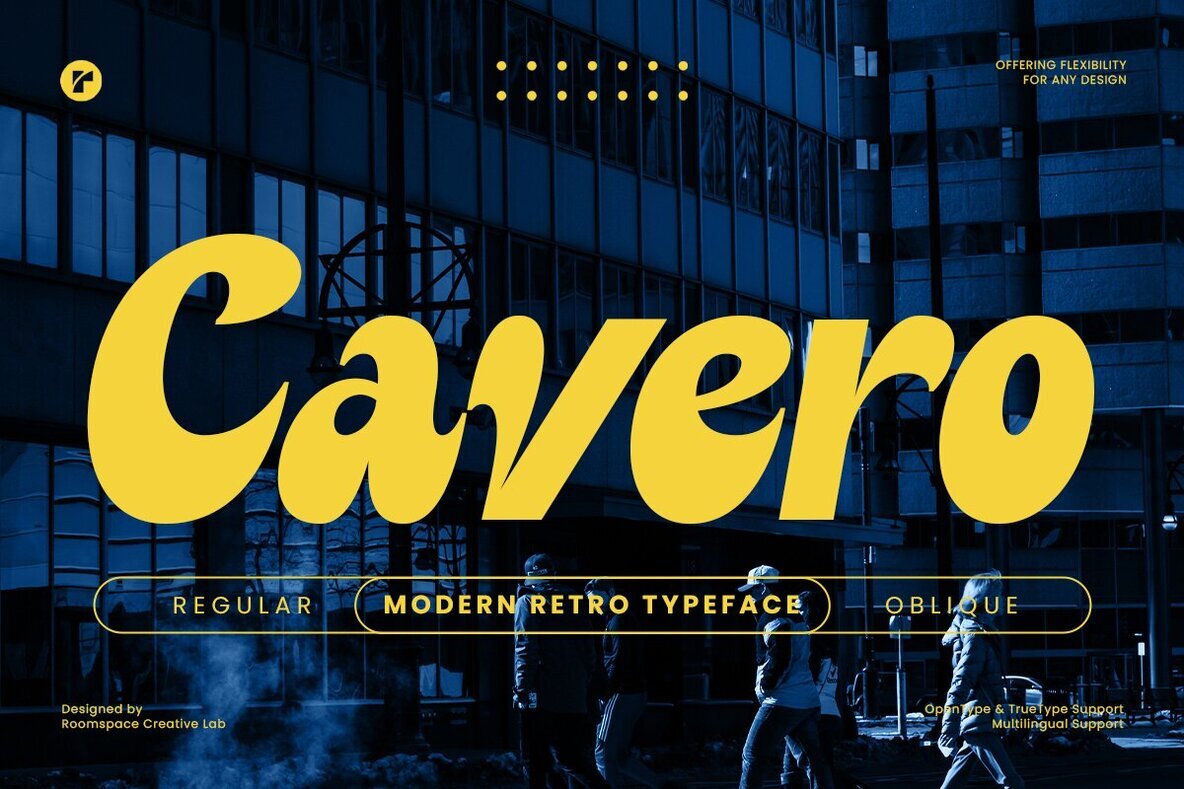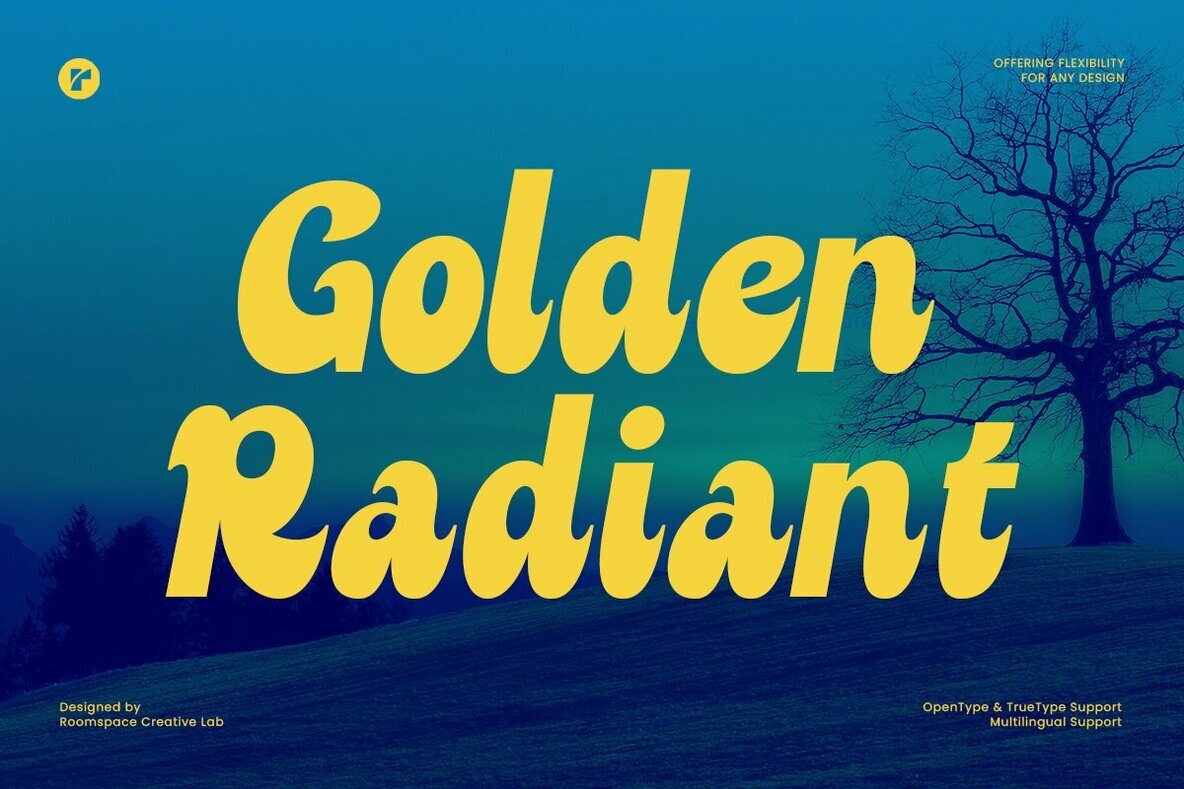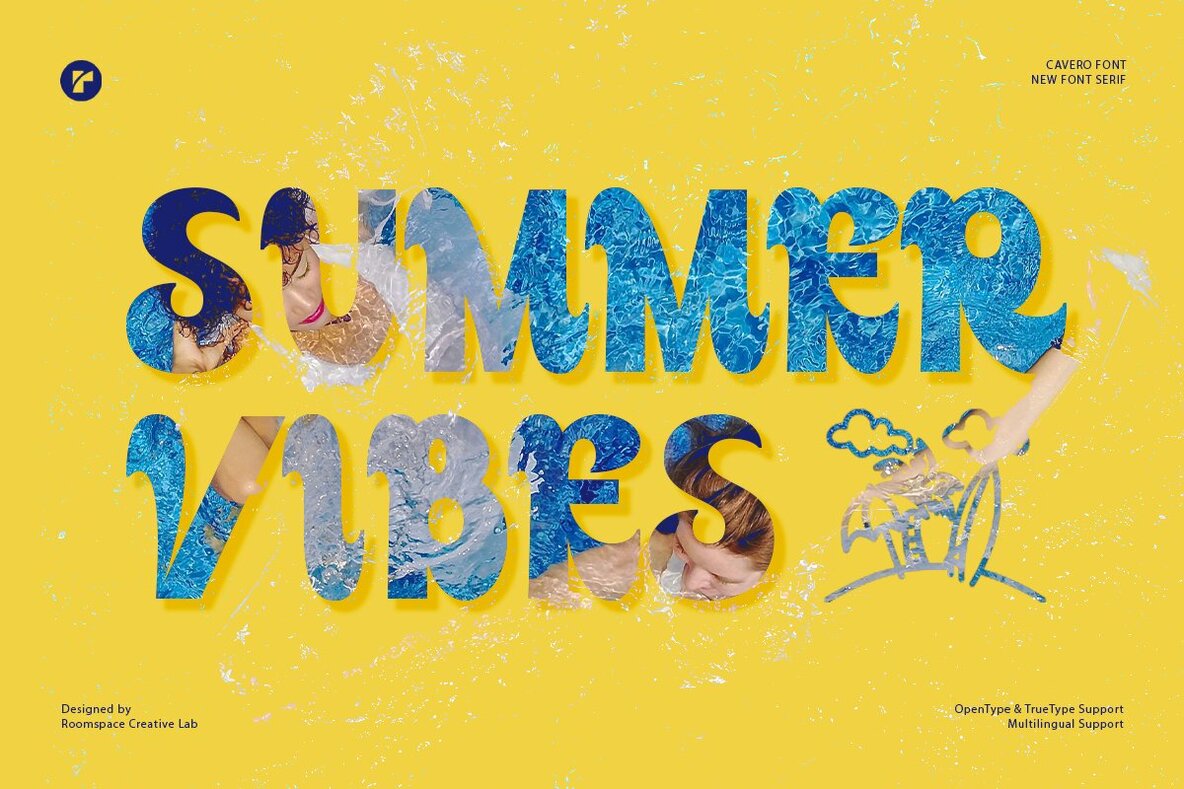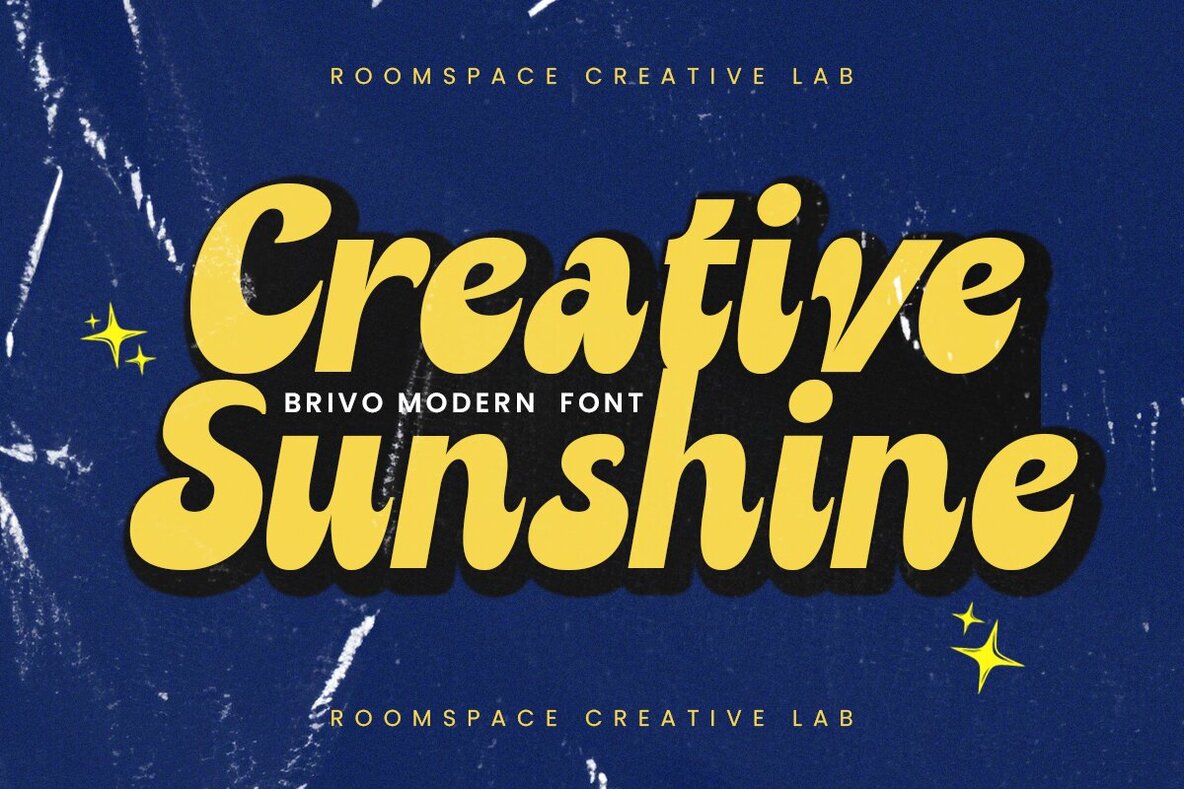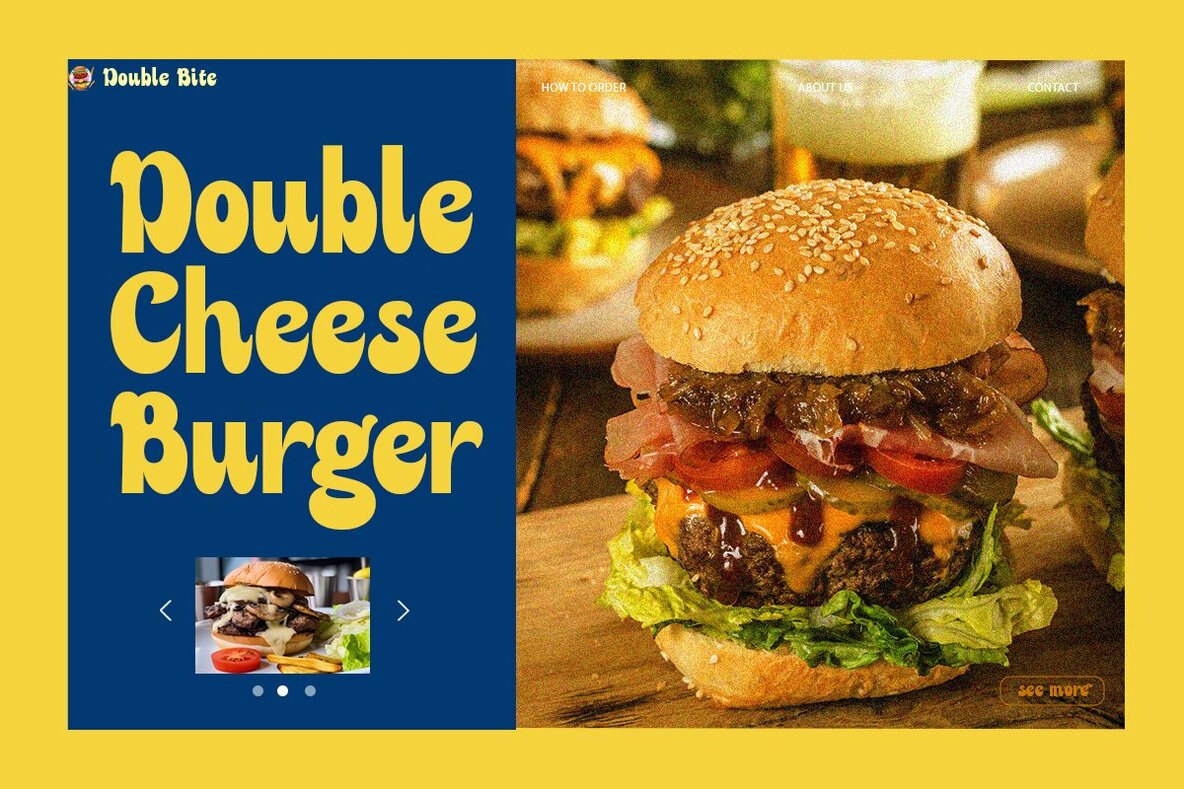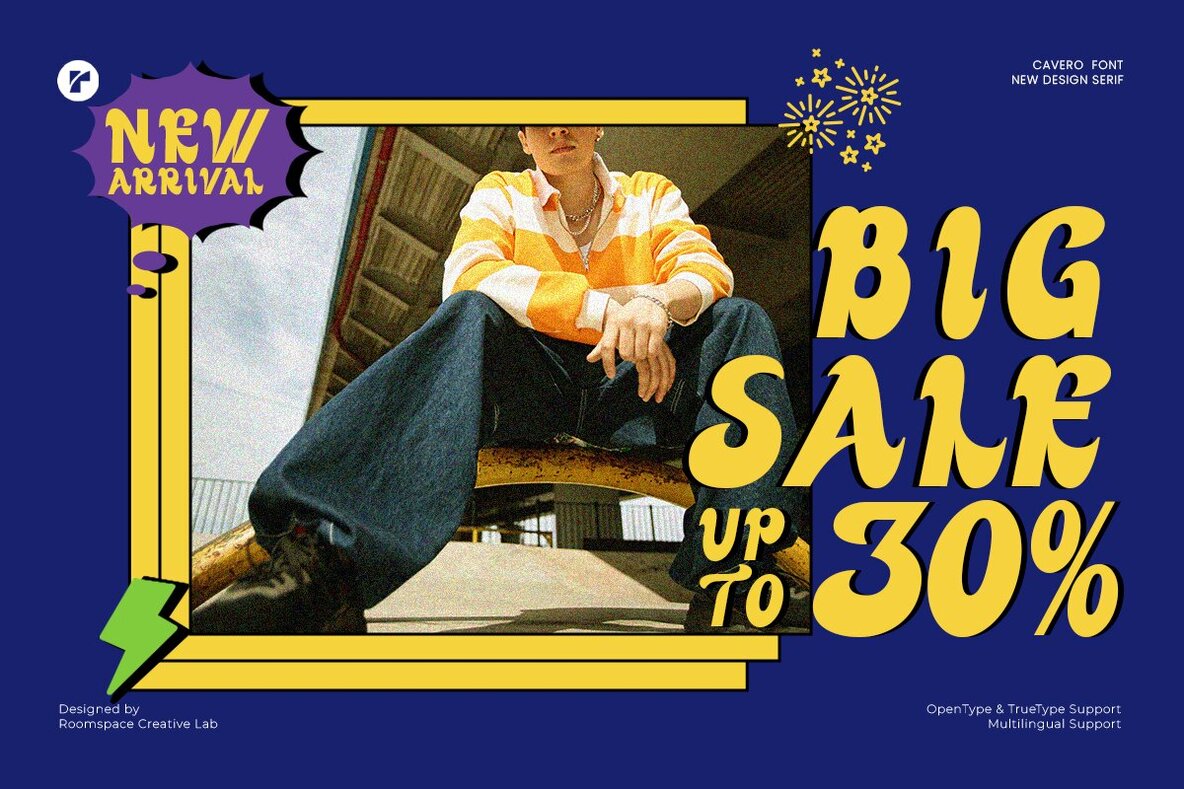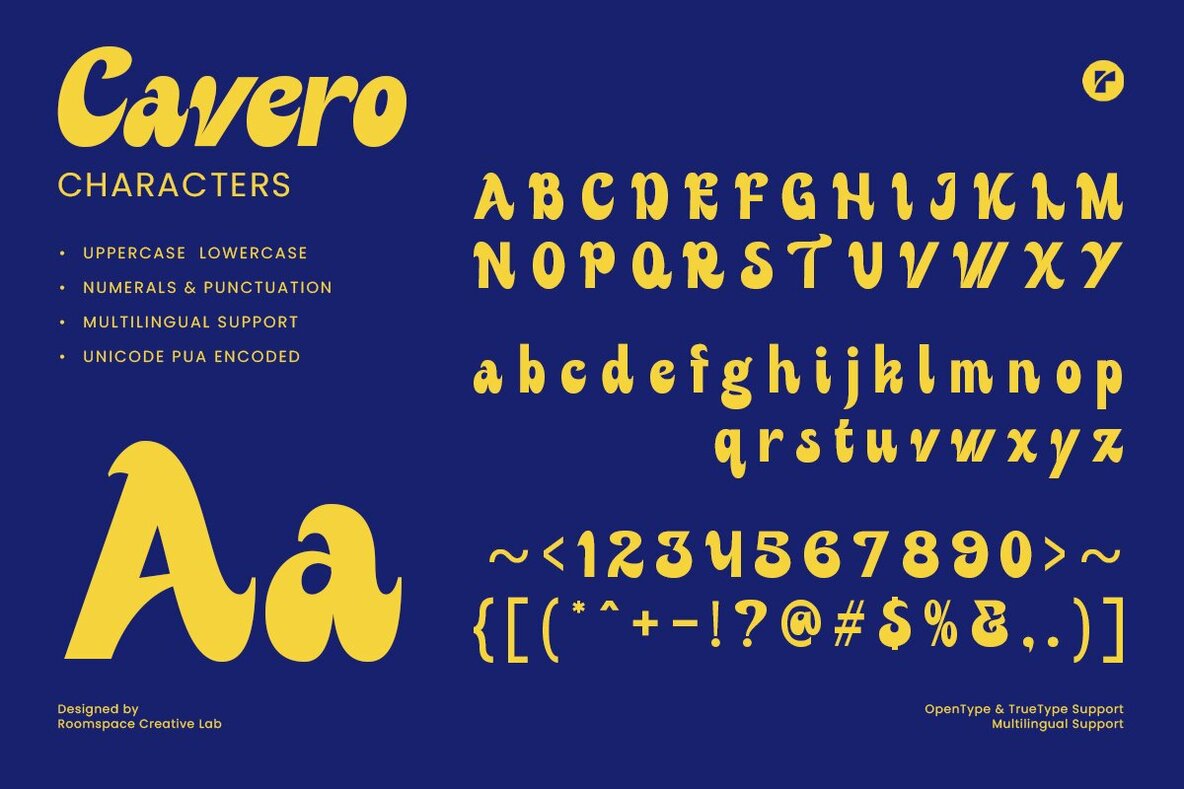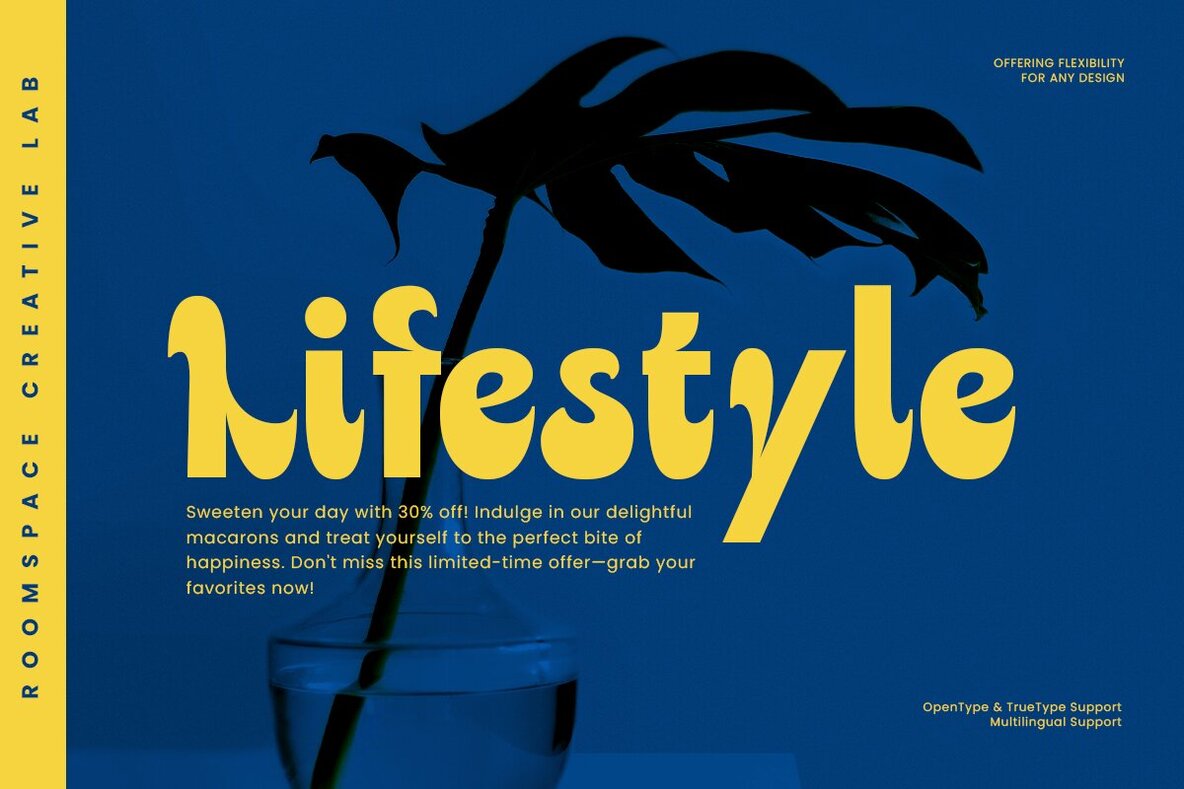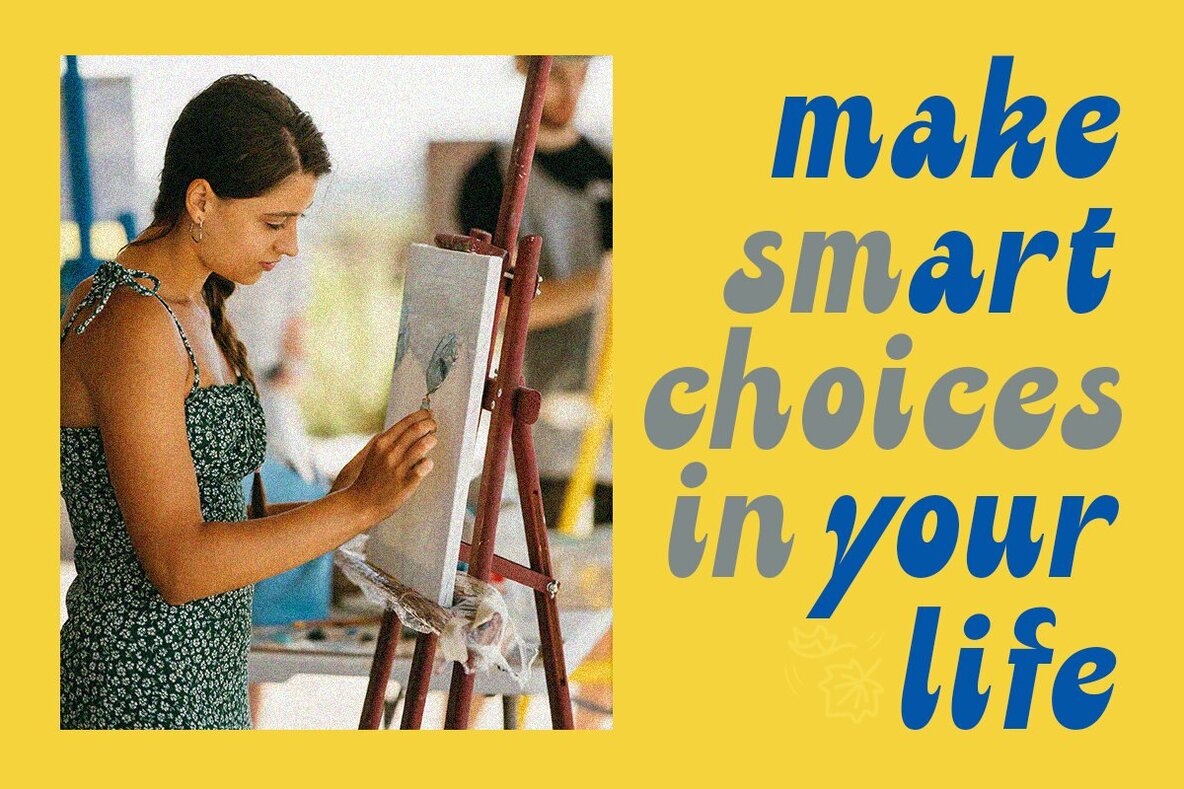
Cavero Font
Cavero, a bold and striking modern retro sans-serif display font that perfectly balances contrast between thick and thin strokes. With its sleek and timeless design, Cavero is ideal for creating eye-catching logos, posters, branding, and advertisements. Perfect for: This versatile typeface offers: